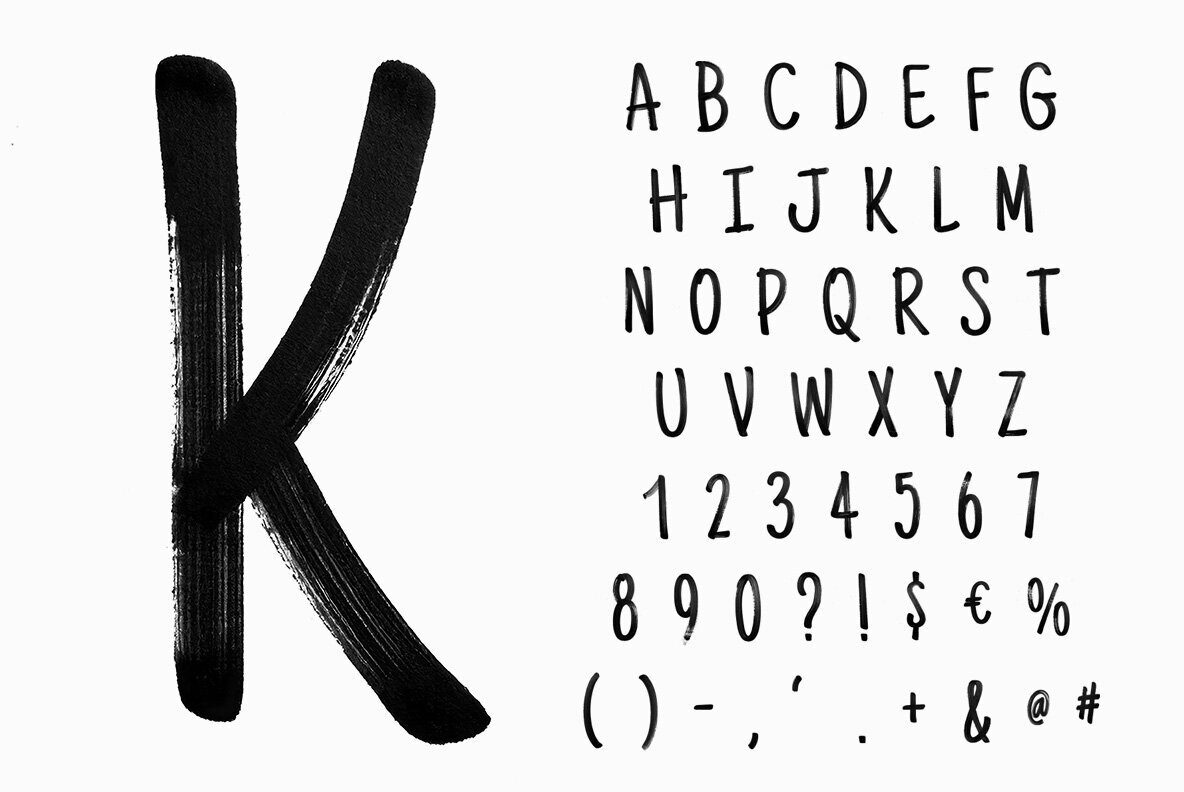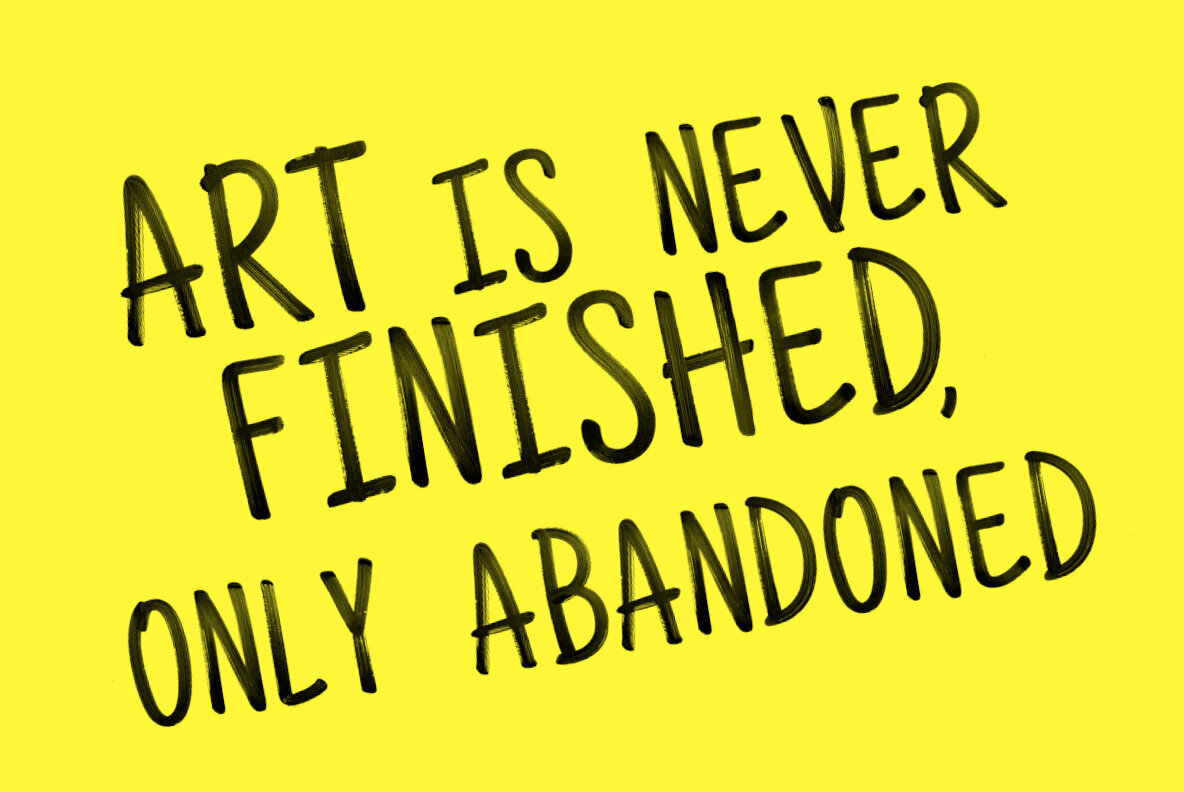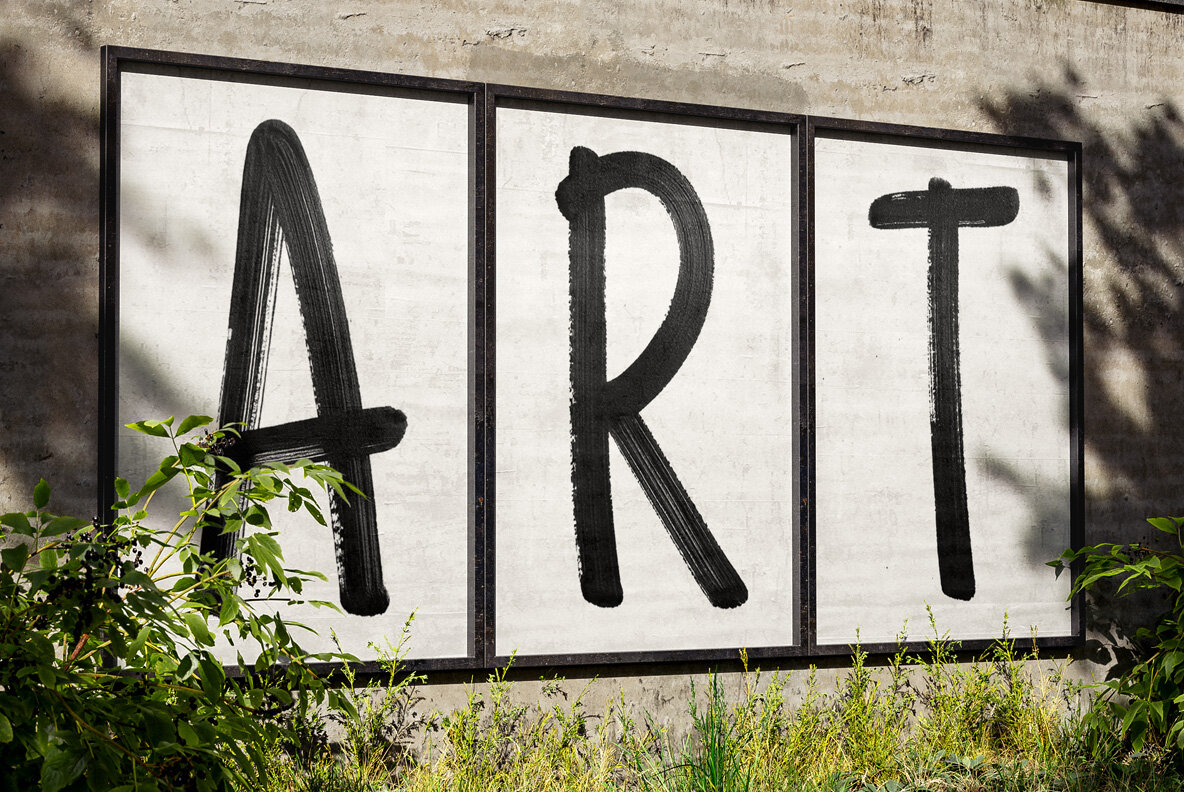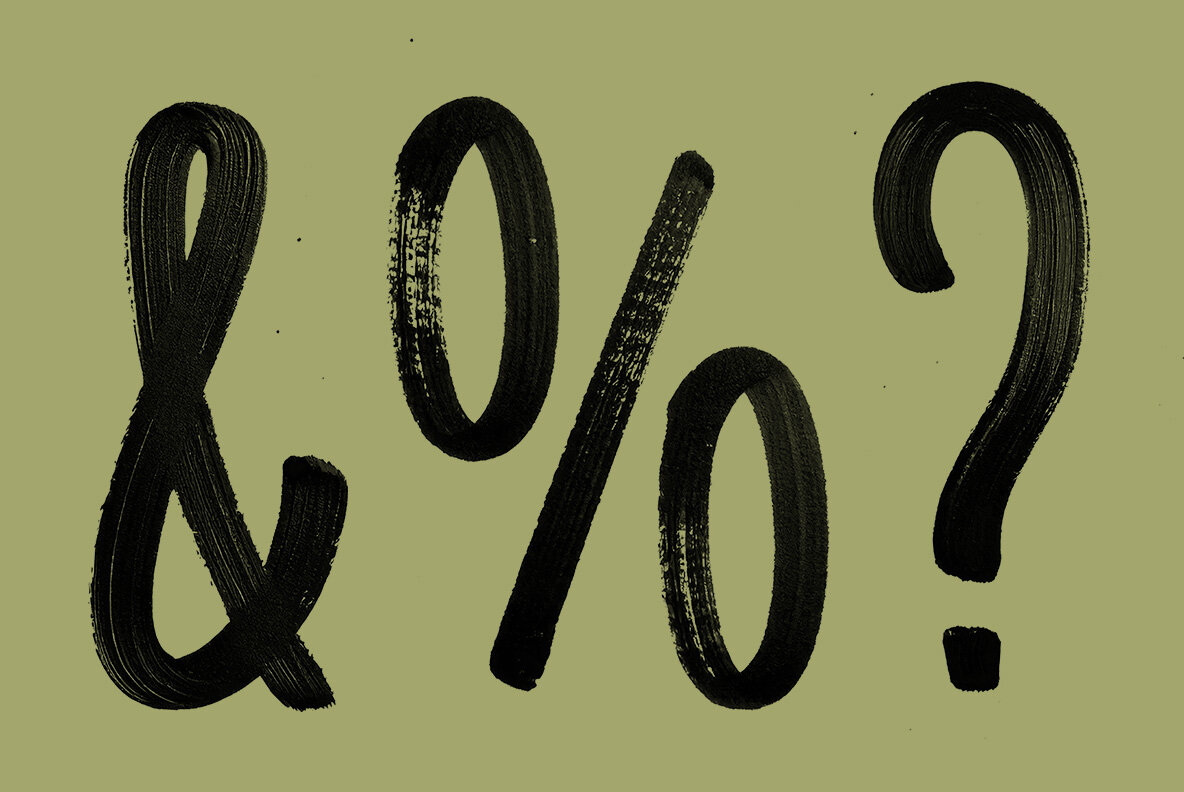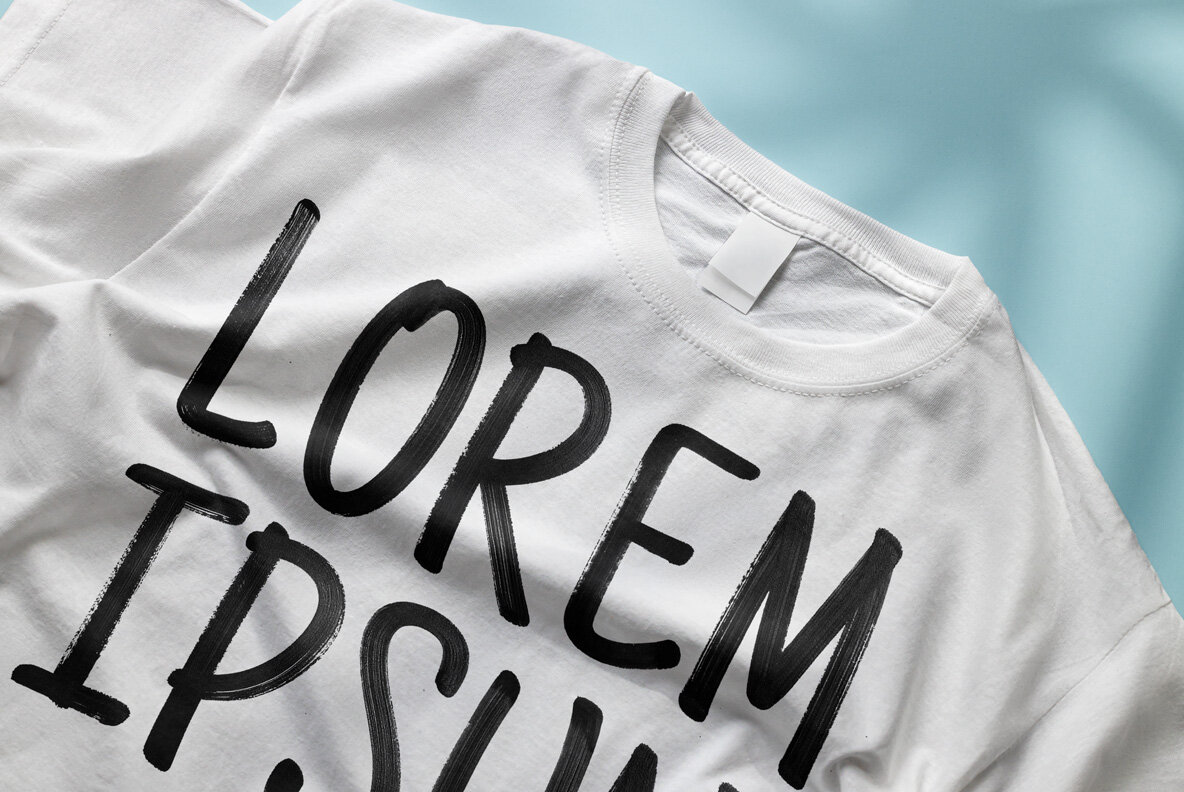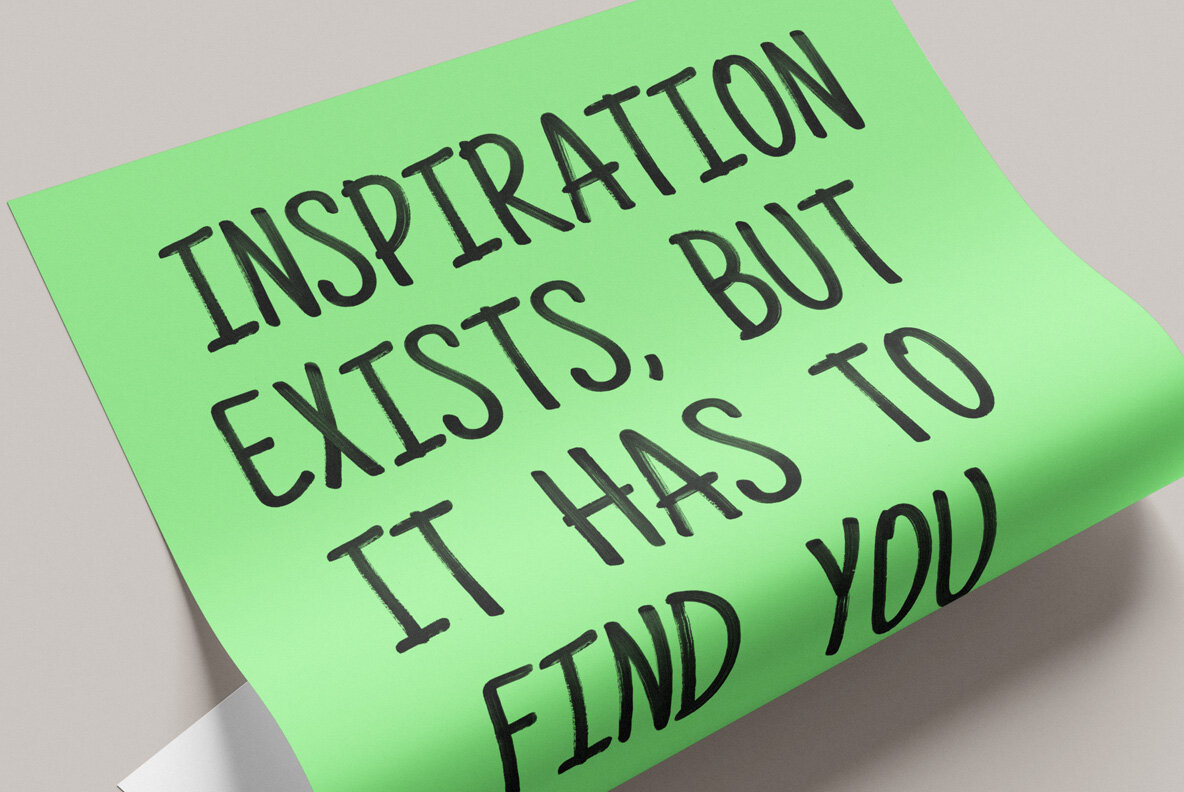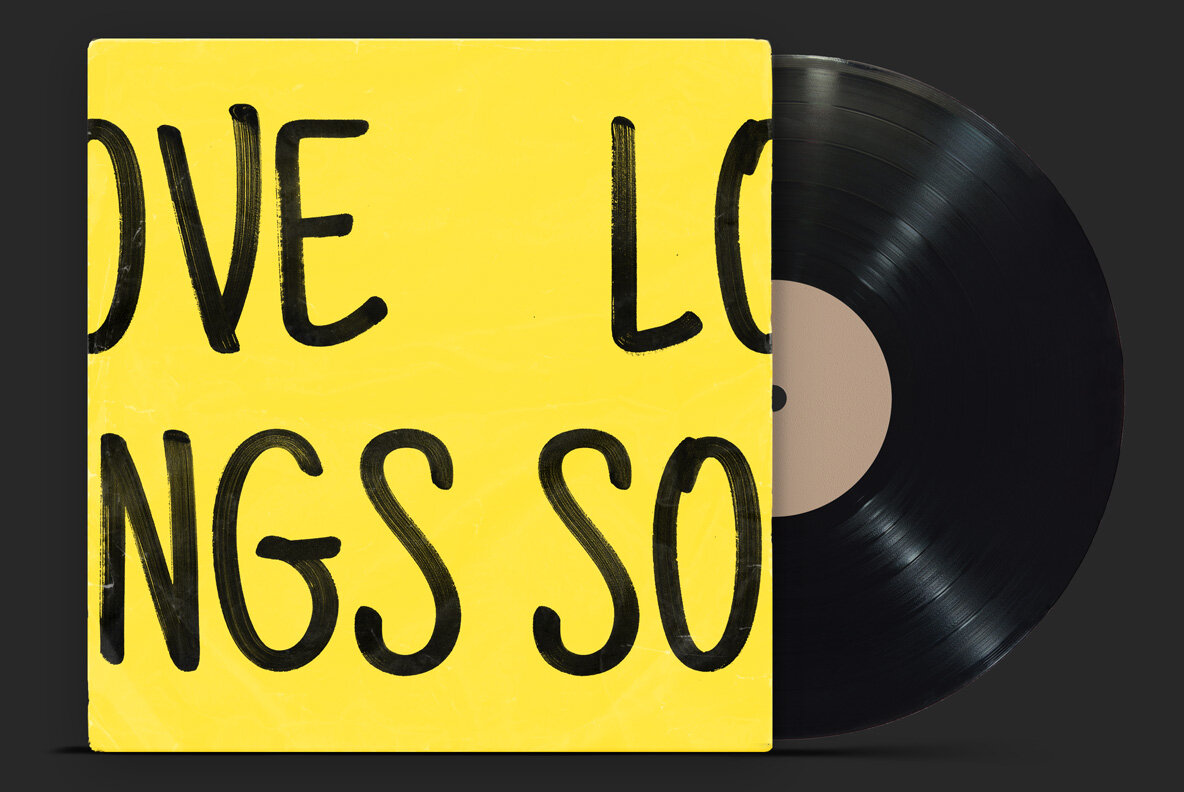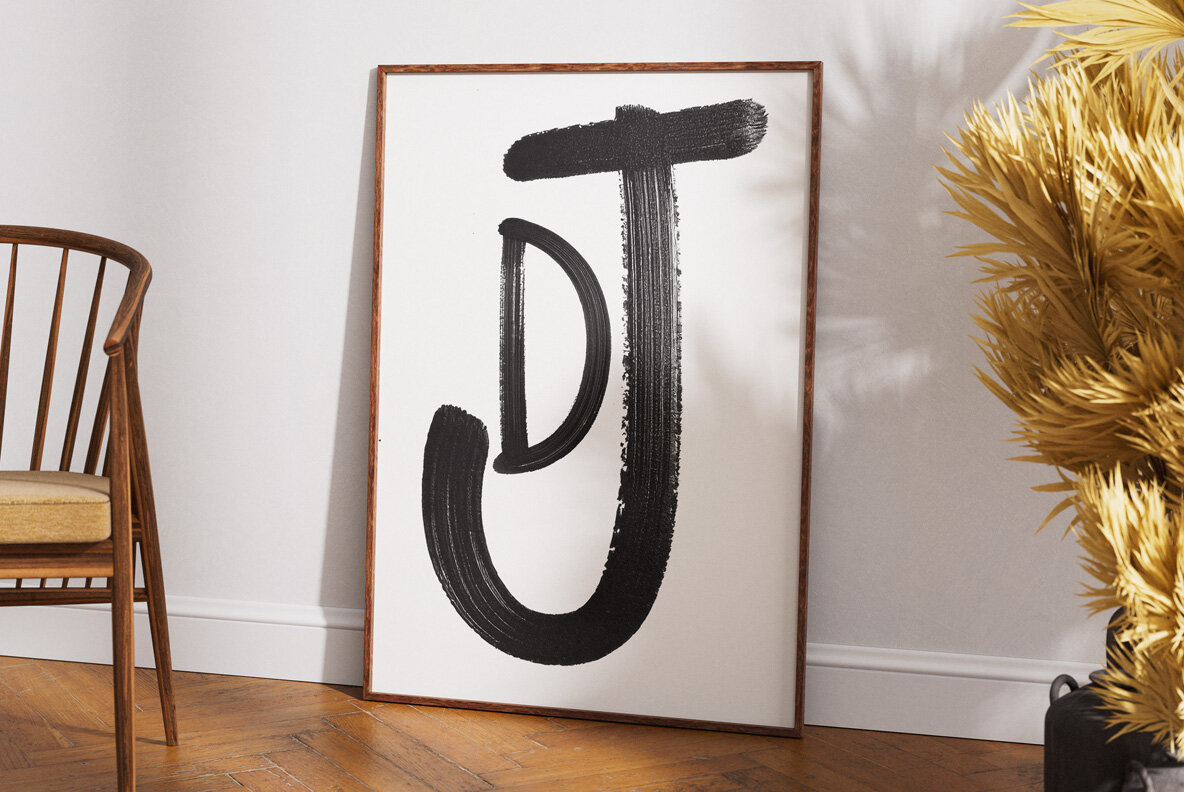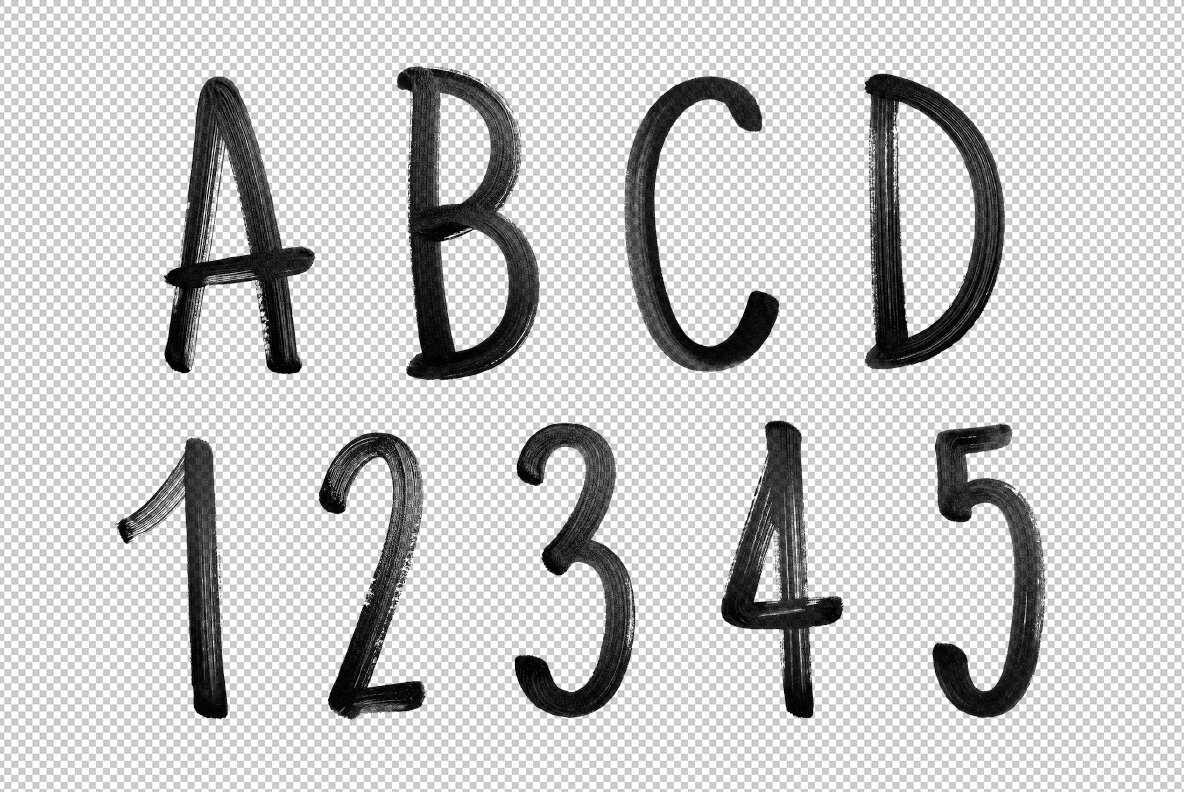
Paintbrush Flow Font offers a bold, expressive typeface that expertly emulates the fluid strokes of an artist's paintbrush, bringing each letter to life with a unique flair. This handcrafted brush font is ideal for projects that require a touch of creativity and dynamism, making it perfect for posters, logos, and social media designs. The high-definition OpenType font includes uppercase characters, numerals, and basic punctuation, providing versatility for various design needs. As a color OpenType file, it is compatible with applications that support color bitmap fonts such as Photoshop, Illustrator, and more.
In addition to its OpenType functionality, Paintbrush Flow comes with individual PNG files for each character on a transparent background, allowing for seamless integration into any graphics software. Each image boasts an impressive resolution of 3000x3000px, ensuring every letter maintains its high-quality visual impact in digital and print mediums. This package contains 56 files, encompassing a full set of letters, numbers, and essential punctuation marks. While extended punctuation and language support are not included in the font files, these characters are accessible through the PNG image set, offering designers flexibility in their creative endeavors.